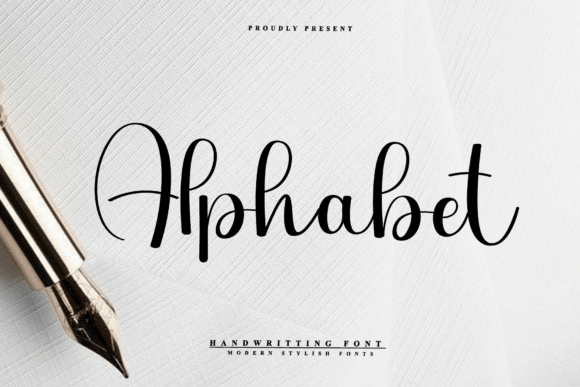
The Elegance of Alphabet Font: A Designer’s Delight
I still remember the project that led me to discover the beauty of Alphabet Font. I was working on a luxury brand identity, and my client requested a font that exuded sophistication and elegance. I scoured the internet, tried countless fonts, but nothing seemed to fit the bill. That was until I stumbled upon Alphabet Font. Its fluid handwriting style and high-contrast visual rhythm immediately caught my attention. I knew I had found the perfect fit.
- ✨ Sophisticated and fluid handwriting style that balances traditional calligraphic structures with a modern aesthetic
- ✅ High-contrast visual rhythm with thick, grounded downstrokes and delicate, wispy hairline connectors
- 💫 Expansive, looping flourishes that provide a sense of customized artistry and professional grace
- 👍 Perfect for boutique brand identities, luxury event invitations, professional signature watermarks, and elegant editorial titles
While Alphabet Font is a stunning addition to any design project, there are a few things to keep in mind. 🤔 For example, the font’s intricate details and flourishes may not be suitable for very small font sizes or low-resolution applications. ⚠️ Additionally, some users may find the font’s high-contrast style challenging to read in certain contexts.
Alphabet Font was designed with the goal of creating a sophisticated and elegant handwriting font that would balance traditional calligraphic structures with a modern aesthetic. The designer’s inspiration came from the world of luxury branding and high-end editorial design. By combining the fluidity of handwriting with the precision of digital design, the designer aimed to create a font that would add a touch of elegance and sophistication to any design project.
Q: What is the best font size to use with Alphabet Font?
A: The ideal font size for Alphabet Font will depend on the specific design project and application. However, as a general rule, it’s best to use a font size of at least 24-30 points to ensure that the font’s intricate details and flourishes are fully legible.
Q: Is Alphabet Font suitable for body text?
A: While Alphabet Font is a beautiful and elegant font, it may not be the best choice for body text due to its high-contrast style and intricate details. It’s best suited for headlines, titles, and other display text.
Q: Can I use Alphabet Font with other fonts?
A: Yes, Alphabet Font can be paired with other fonts to create a unique and visually appealing design. Experiment with different font combinations to find the perfect balance of elegance and contrast.